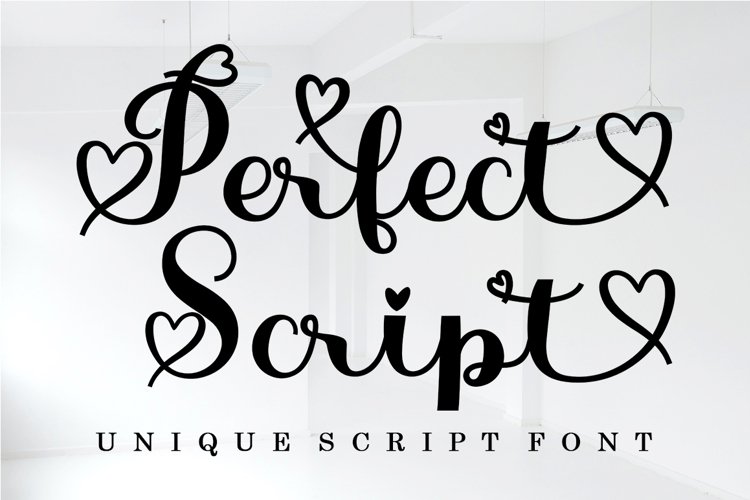
Perfect Script is modern script font with irregular baselines. Stylish and feminine. Perfect Script Script looks beautiful in wedding invitations, thank you cards, quotes, greeting cards, logos, business cards, and more. Perfect for use in ink or watercolor. Includes initial letters and terminals, alternatives and support for many languages.